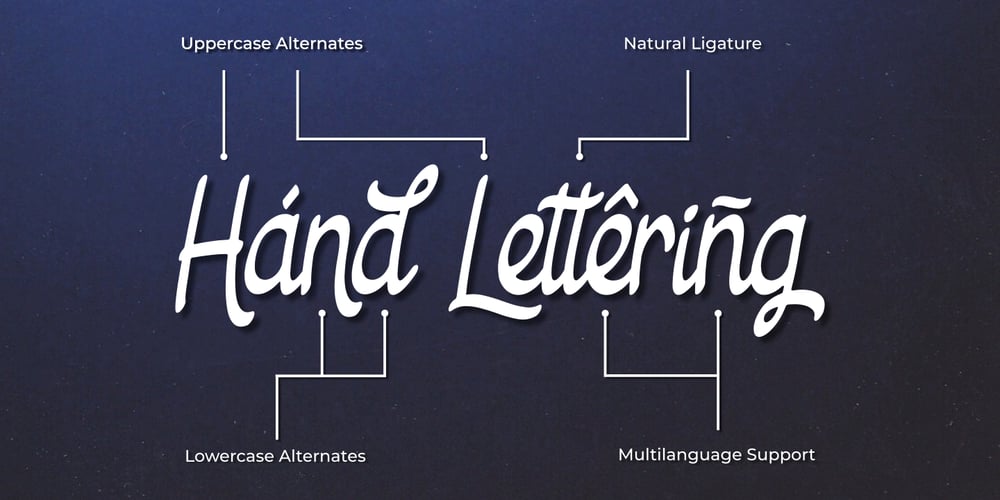
Bengawan
Bengawan font
Bengawan Font Family was designed by Khaidir Fajri and published by Panritype Studio. Bengawan contains 1 styles and family package options. Bengawan is a modern, elegant, beautiful script. It has beautiful characters and it’s perfect for project such as logos, wedding invitation, posters, social media headlines, birthday cards and also match with other design project. Bengawan comes with natural ligatures and extra alternates that can make your project more beautiful and elegant. Features: – Natural Ligatures – More Extra Alternates – PUA Encoded – Multilanguage Support Thank You For Download. Have question(s)? drop here: fajry.al.fatih13@gmail.com Thank You